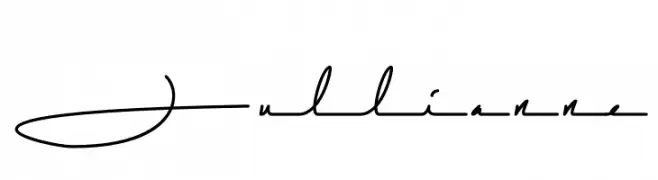
An elegant script font with fluid, cursive strokes and sophisticated design.
A graceful, cursive script font with elegant, flowing strokes.
An elegant script font with fluid, cursive strokes and a sophisticated appearance.
An elegant script font with flowing, ornate characters and decorative flourishes.
A whimsical and elegant script font with flowing curves and playful loops.
An elegant and flowing script font with a sophisticated, handwritten style.